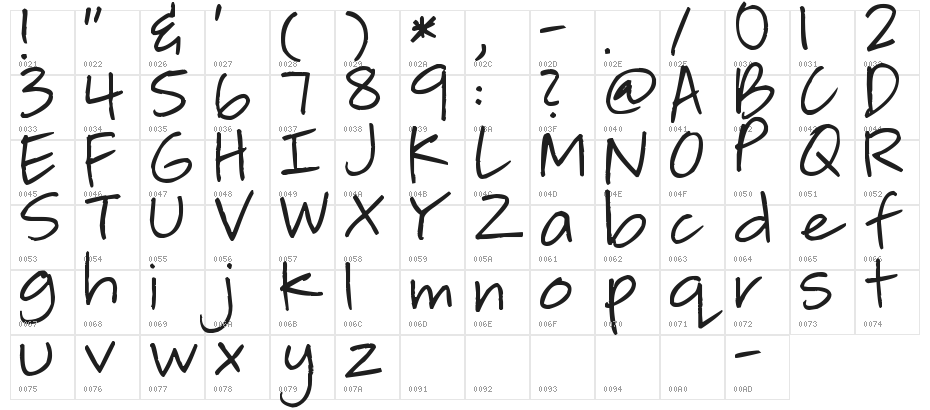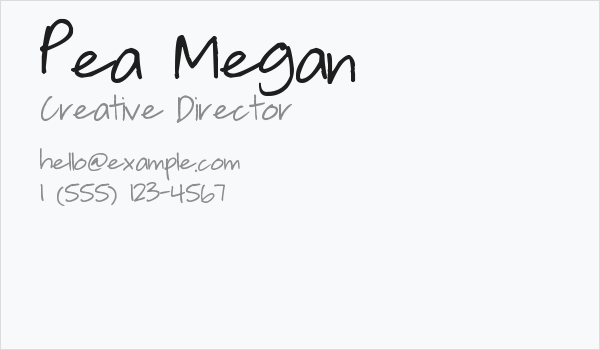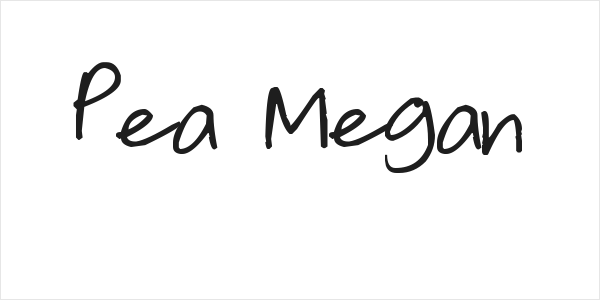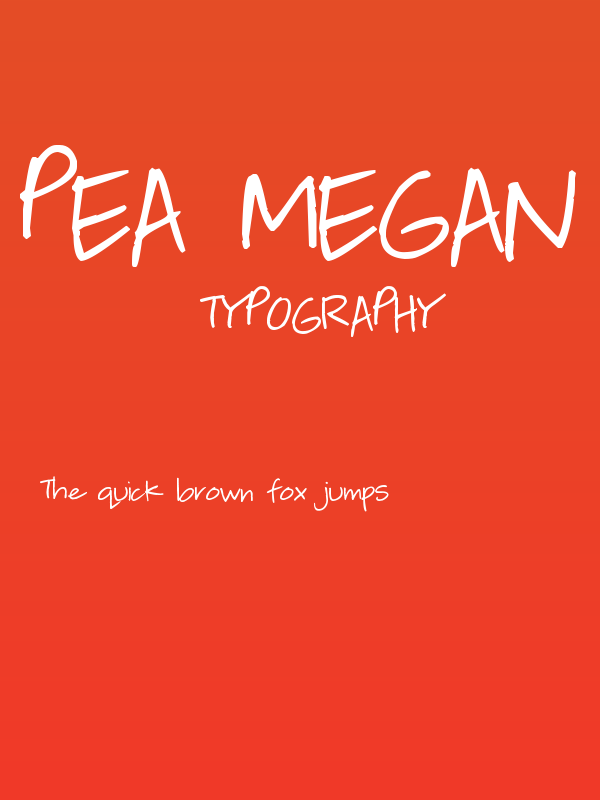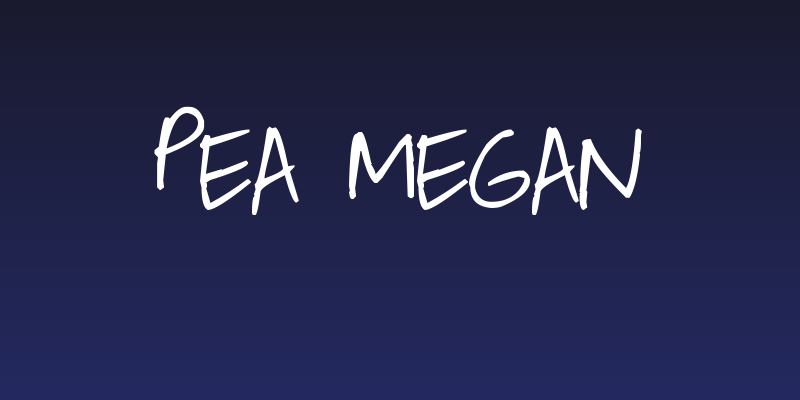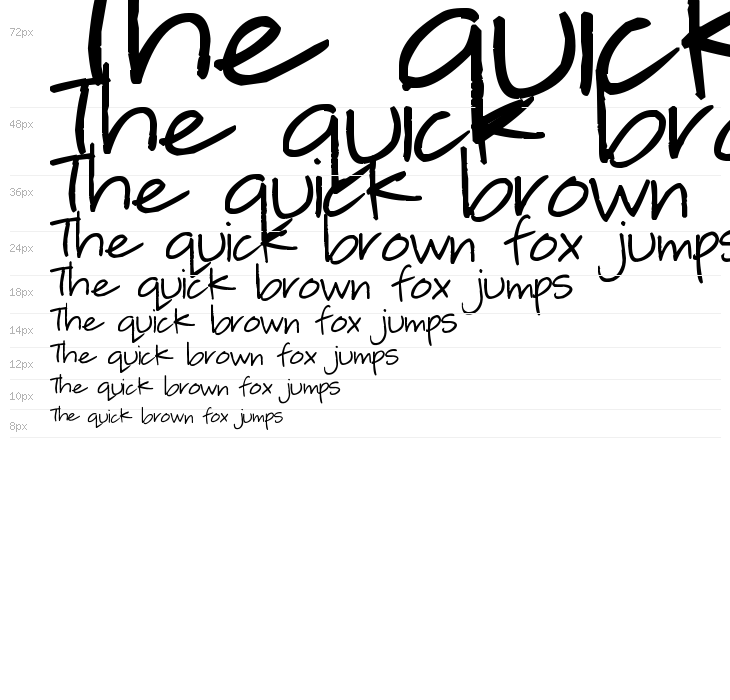
Pea Megan Font
Pea Megan Description
This font exudes a casual and playful handwritten style, characterized by its irregular strokes and natural flow. The letters are slightly slanted, giving it a dynamic and informal appearance. The uppercase and lowercase letters maintain a consistent style, with rounded edges and a slightly uneven baseline that adds to its charm. The numerals and special characters follow the same playful aesthetic, making it versatile for various creative projects. The overall look is approachable and friendly, perfect for conveying a personal touch.
| Use Case | Headlines, Informal text, Personal projects |
| Proposed Projects | Ideal for personal notes, greeting cards, children's books, and informal branding projects. |